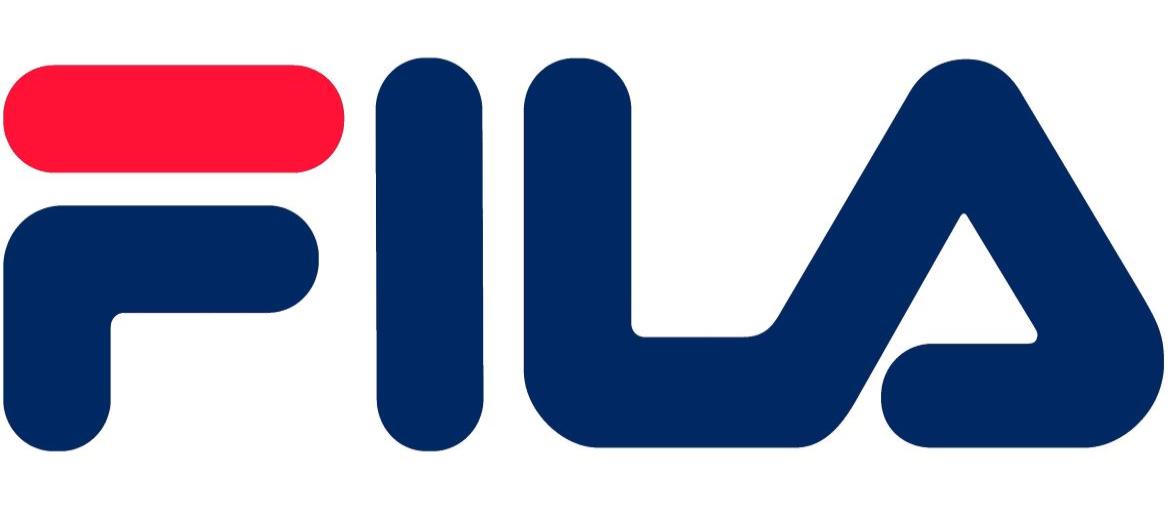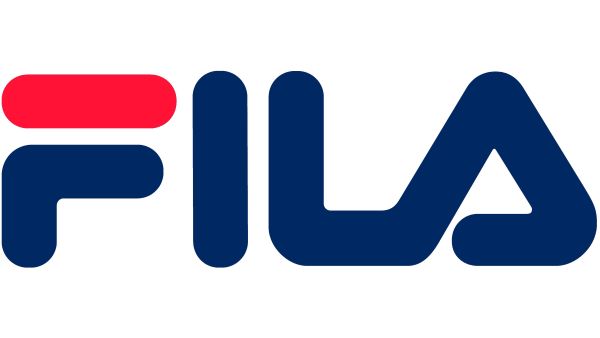
Fila Font
What Font is Fila?
Fila Font reflects the sporty elegance and timeless simplicity that define the Fila brand. The logo’s clean, geometric design conveys motion and modernity while maintaining a sense of balance and refinement. The typeface used is Contemporary by Milabrya, which closely matches the original lettering style—although to recreate the logo perfectly, you’ll need to modify the “F” slightly to match Fila’s unique curve and cut. The Contemporary font is free for personal use, making it an excellent choice for those looking to design sporty or lifestyle-inspired projects that channel the same minimal yet bold aesthetic as the brand.
About Fila
Fila is a renowned Italian sportswear brand founded in 1911 in Biella, Italy. Originally producing clothing for the people of the Italian Alps, the company later became famous for its premium athletic apparel, especially tennis and streetwear collections. Known for its red, blue, and white logo, Fila remains a global symbol of sport, fashion, and timeless design.